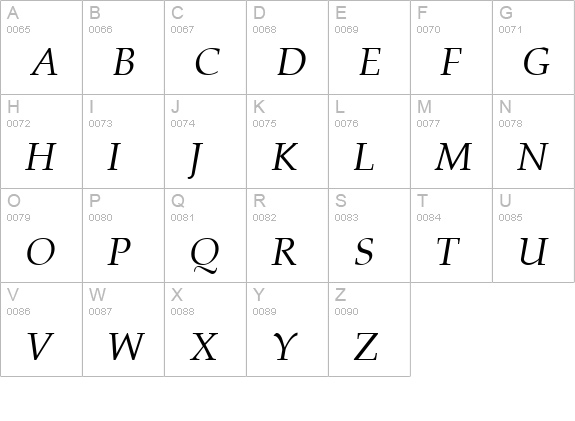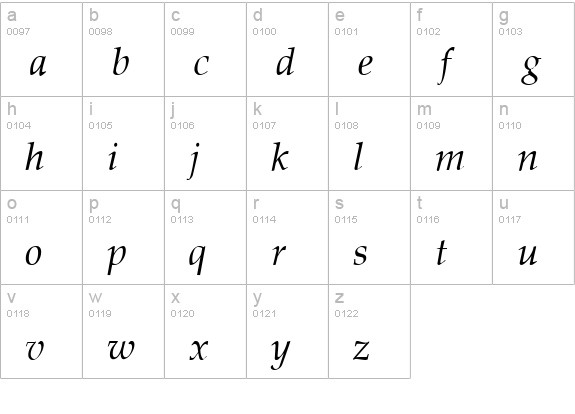
Palisade kursiv Font Details
Palisade kursiv font is a beautifully designed typeface that effortlessly captures elegance and sophistication. Its delicate curves and slanted strokes add a touch of grace to any project it is used in. With its unique combination of classic and contemporary elements, Palisade kursiv font is perfect for creating eye-catching headlines, branding materials, invitations, and more. This font exudes a sense of modernity while still maintaining a timeless appeal. Its clean lines and balanced proportions make it highly legible, ensuring that your message will always be conveyed with clarity. Whether you are designing a website, advertisement, or logo, Palisade kursiv font will provide a polished and professional look. One of the best things about Palisade kursiv font is that it is available for free. You can easily download this font at FontsMarket.com, a trusted source for high-quality fonts. This means that you can enhance your designs without spending a dime, making it an ideal choice for budget-conscious creatives. With Palisade kursiv font, you have the freedom to express your creativity without any limitations. Its versatility allows it to be seamlessly incorporated into various design styles, from minimalistic to bold and expressive. Whether you're working on a personal project or a client's brief, this font will help you achieve the desired impact and leave a lasting impression. Elevate your designs with Palisade kursiv font and experience the seamless blend of elegance and contemporary style. Download it for free at FontsMarket.com and unlock a world of design possibilities.